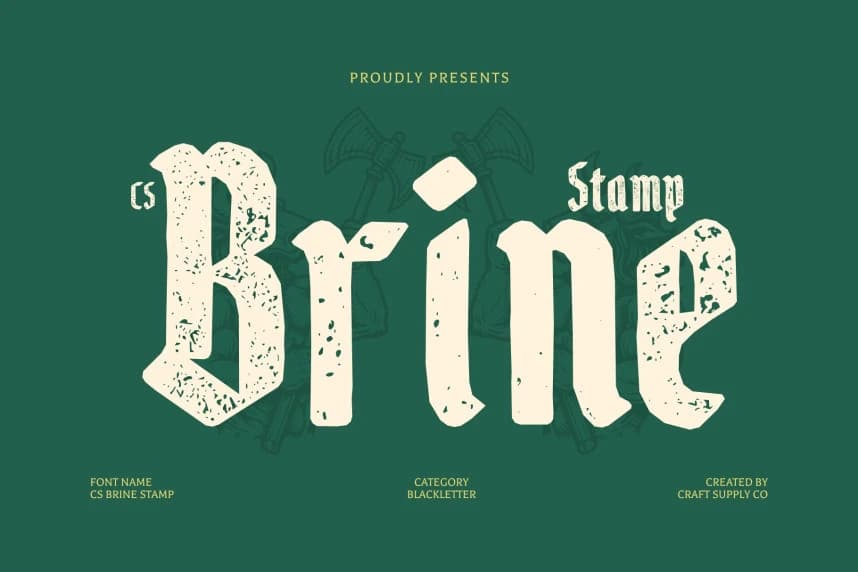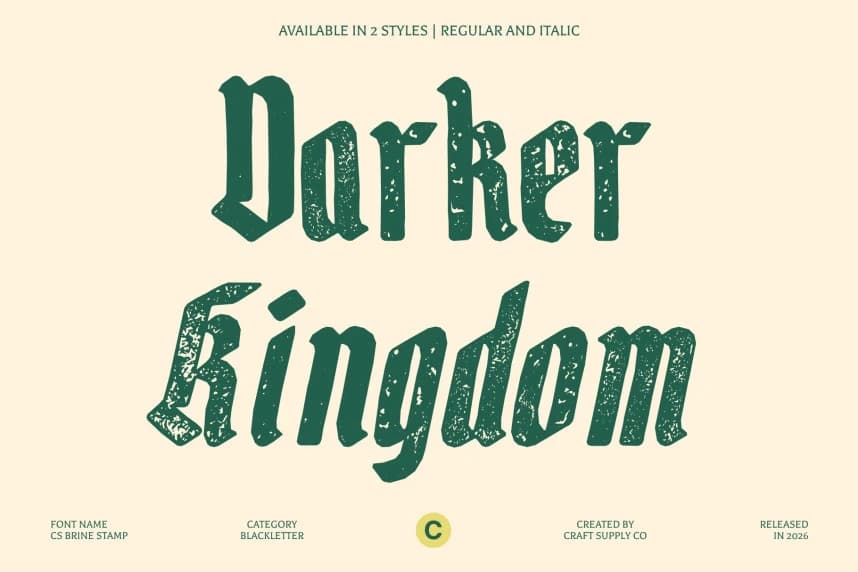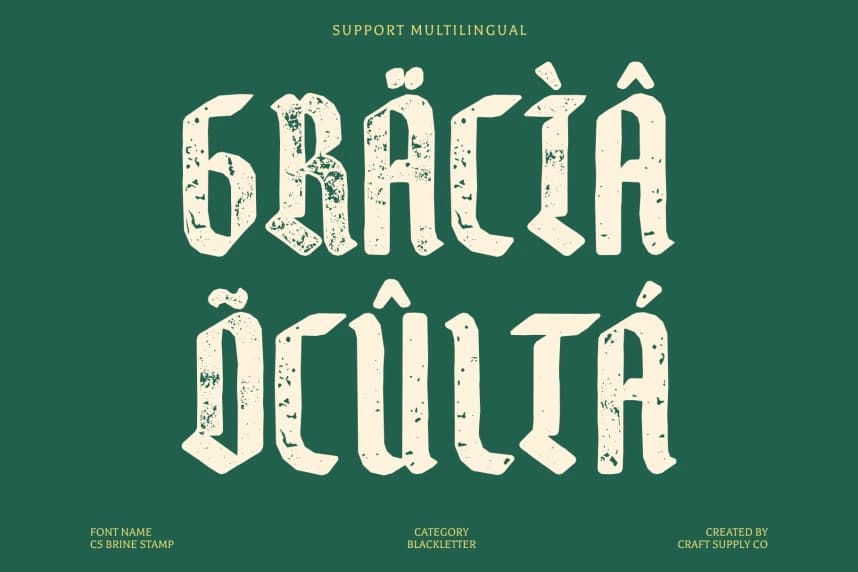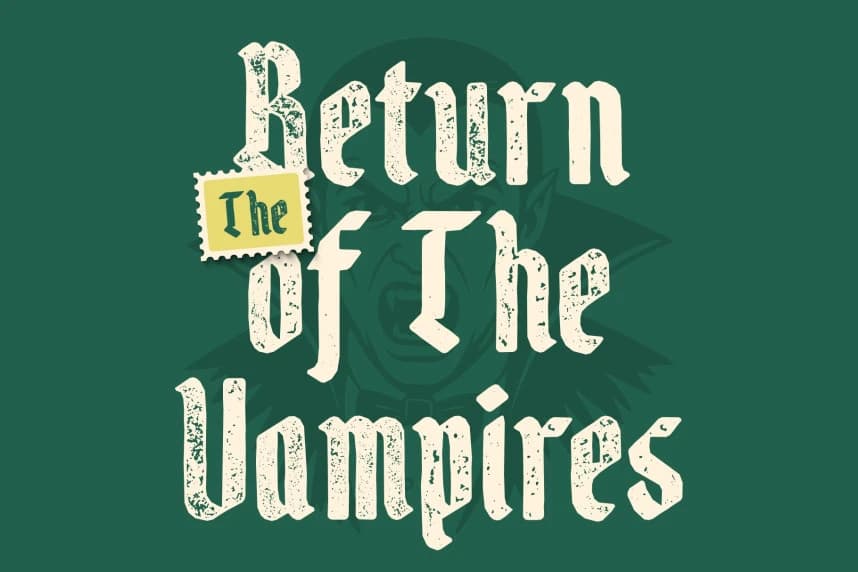
CS Brine Stamp Font
CS Brine Stamp Font – Blackletter Font with Historic Texture Intricately Crafted Blackletter Display Font. This is a striking blackletter display font that captivates with richly detailed letterforms and bold, sharp structures.